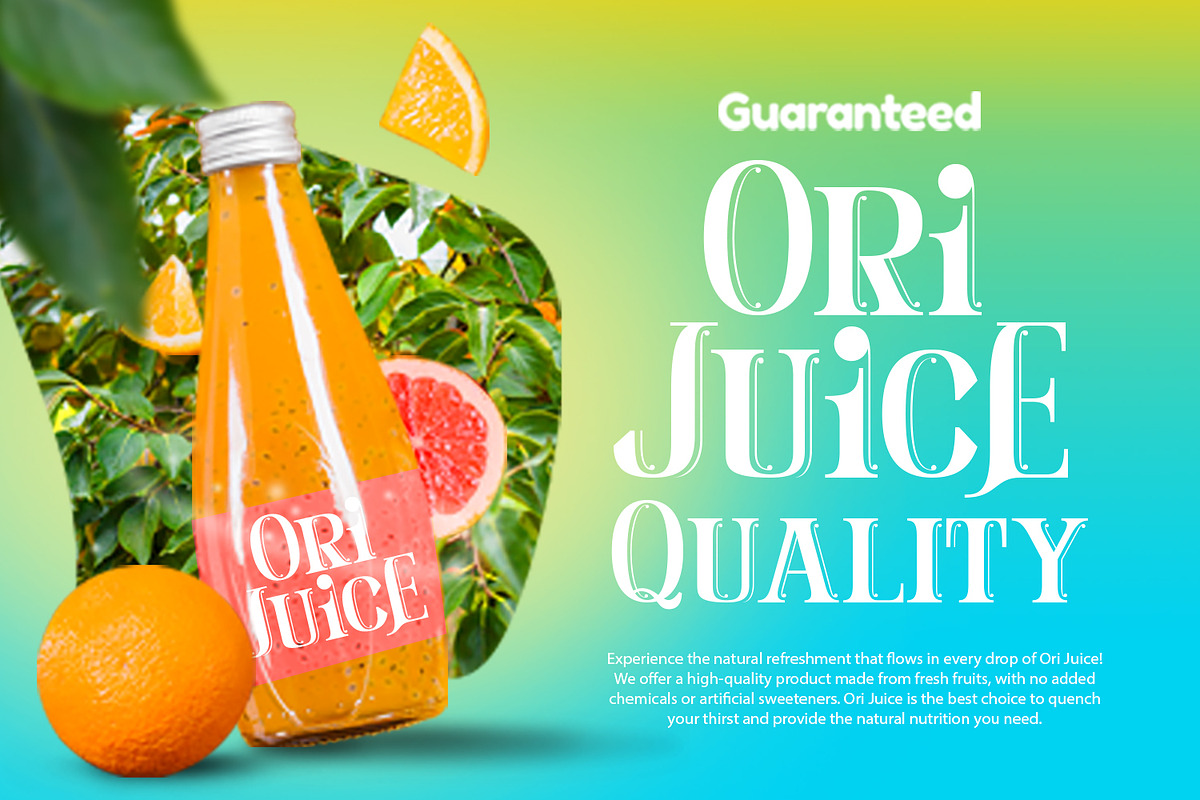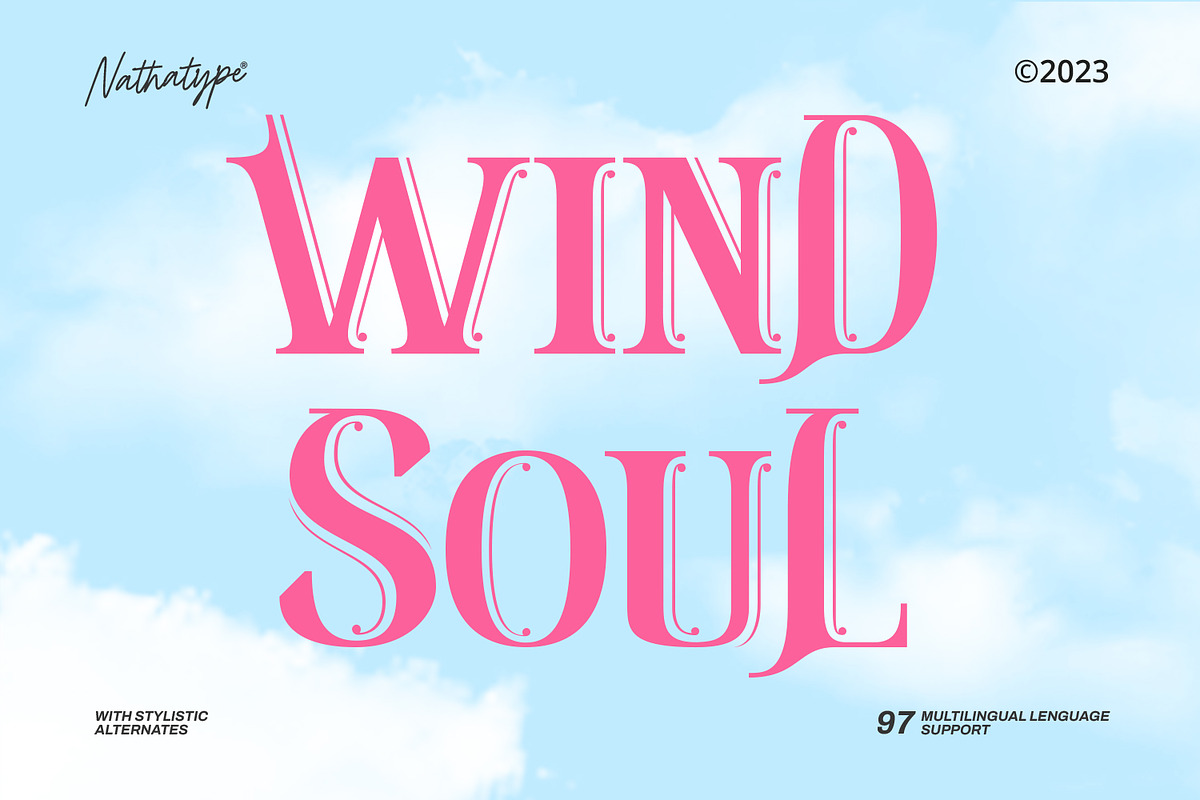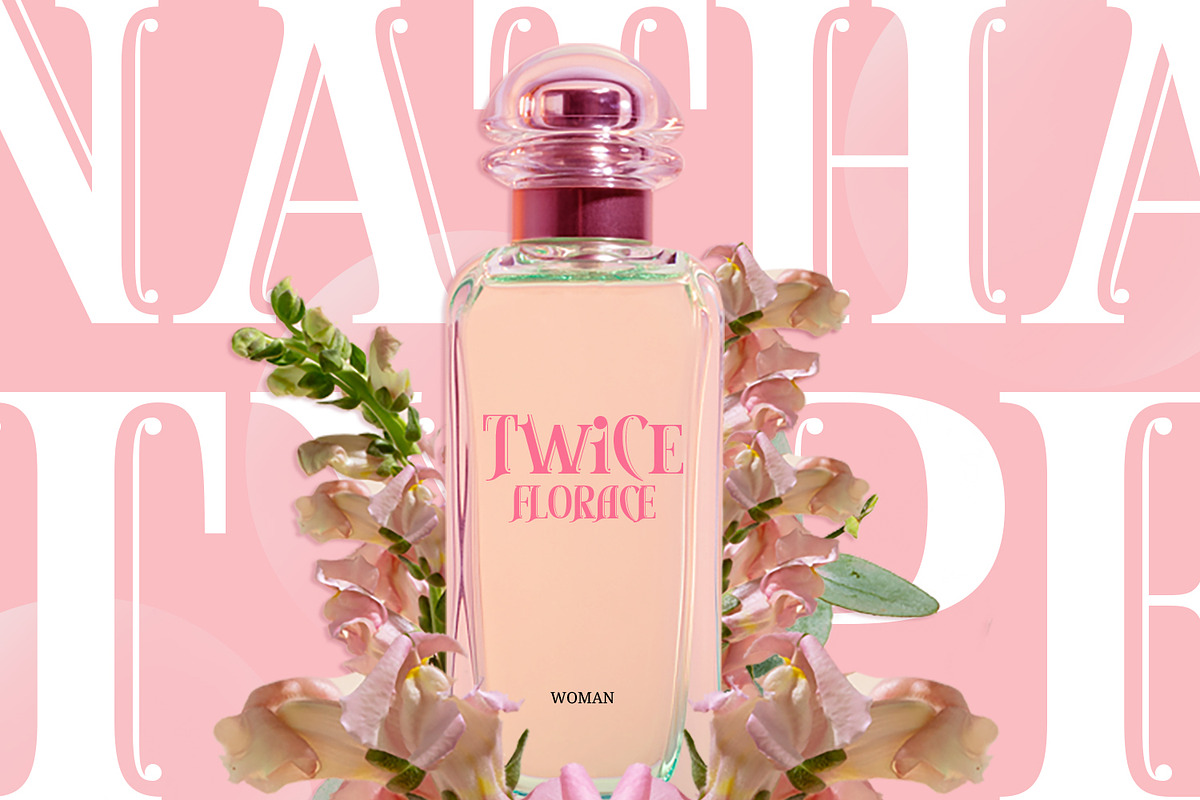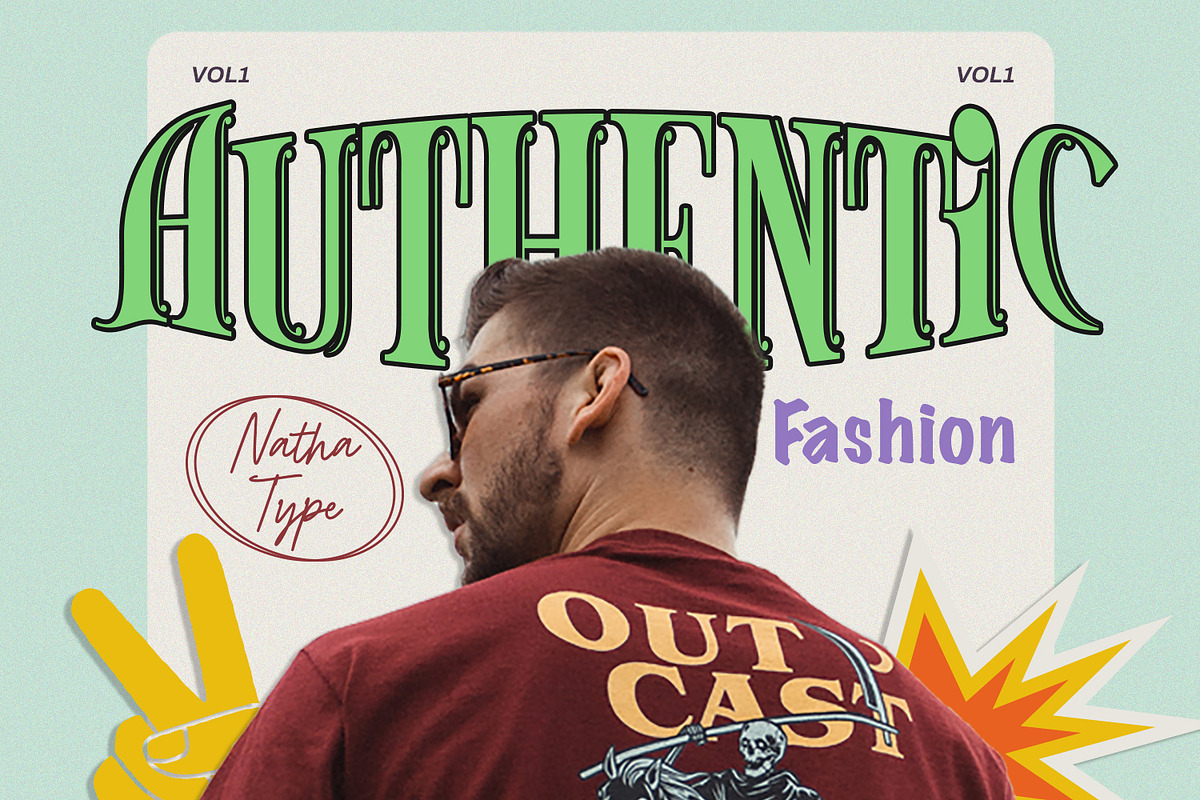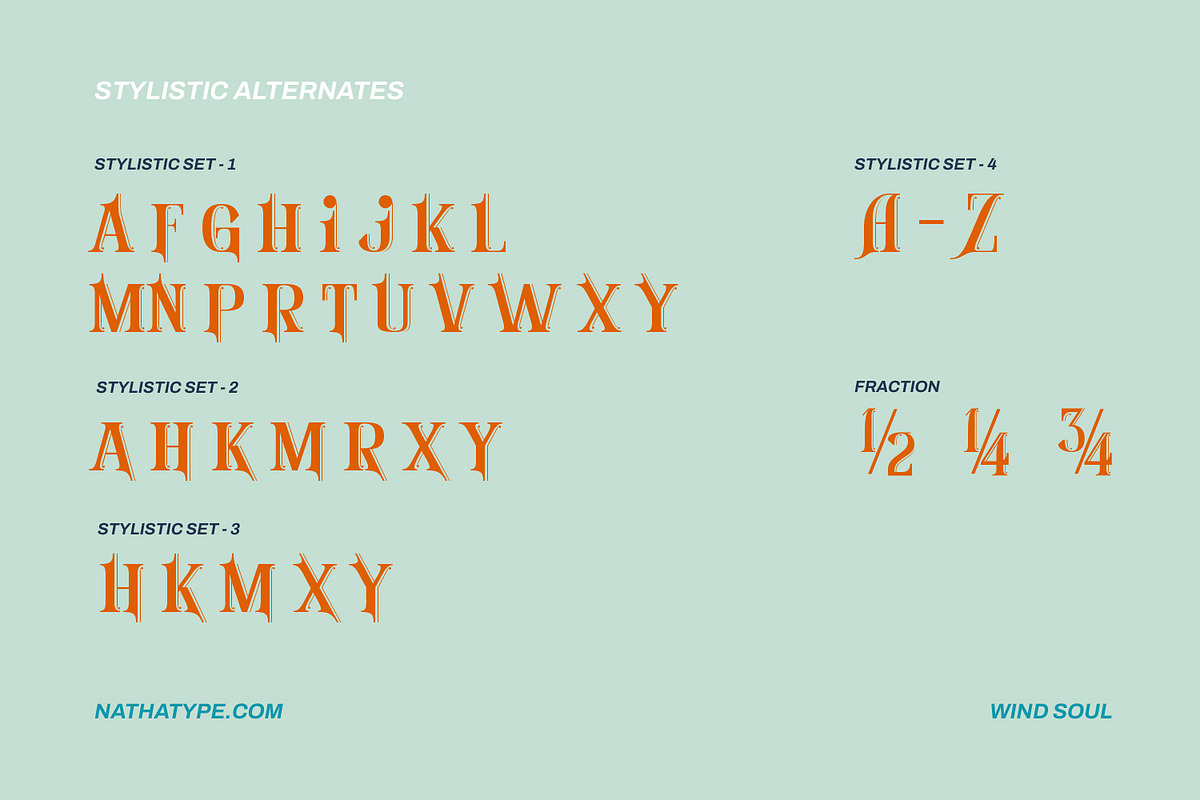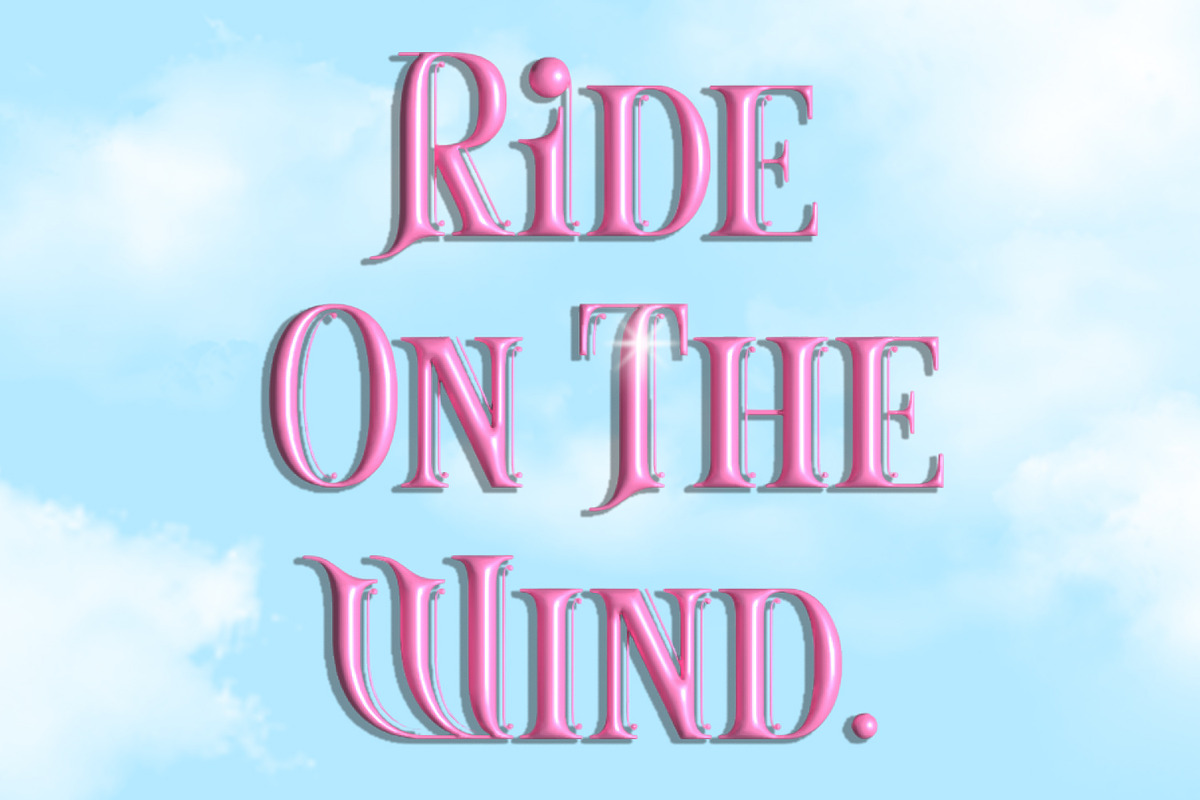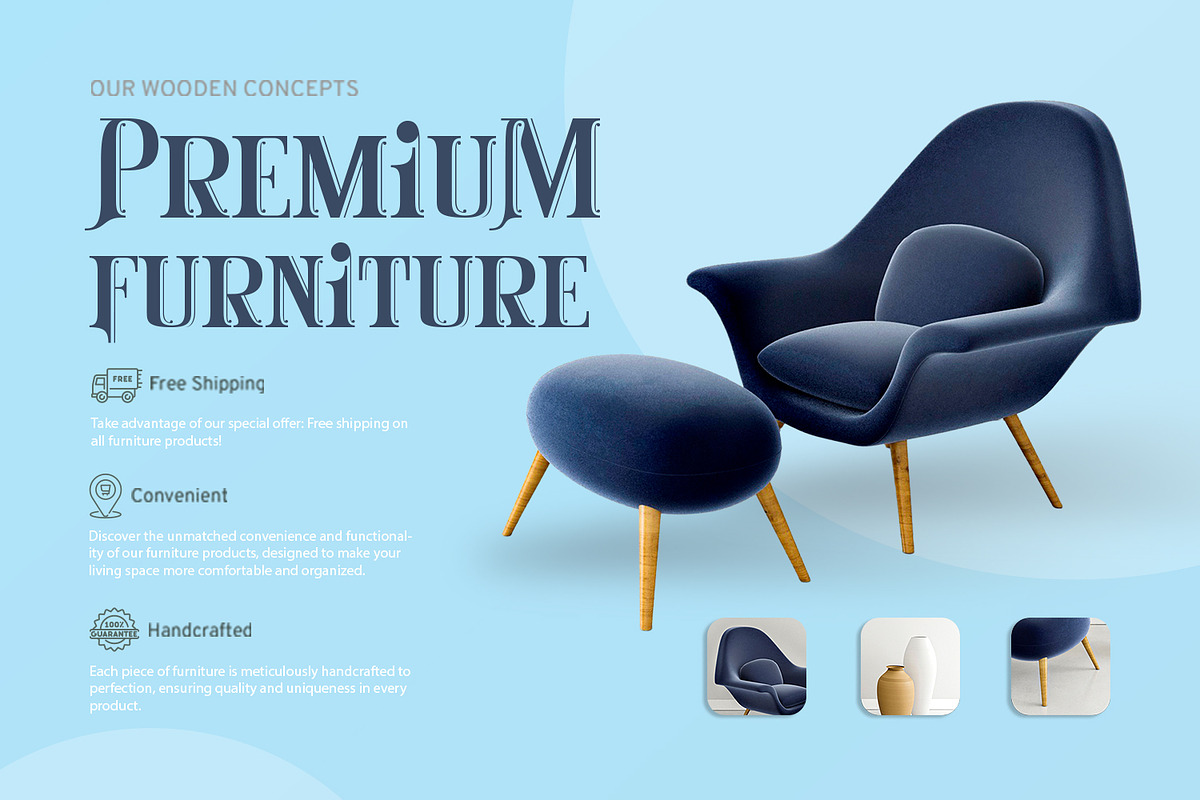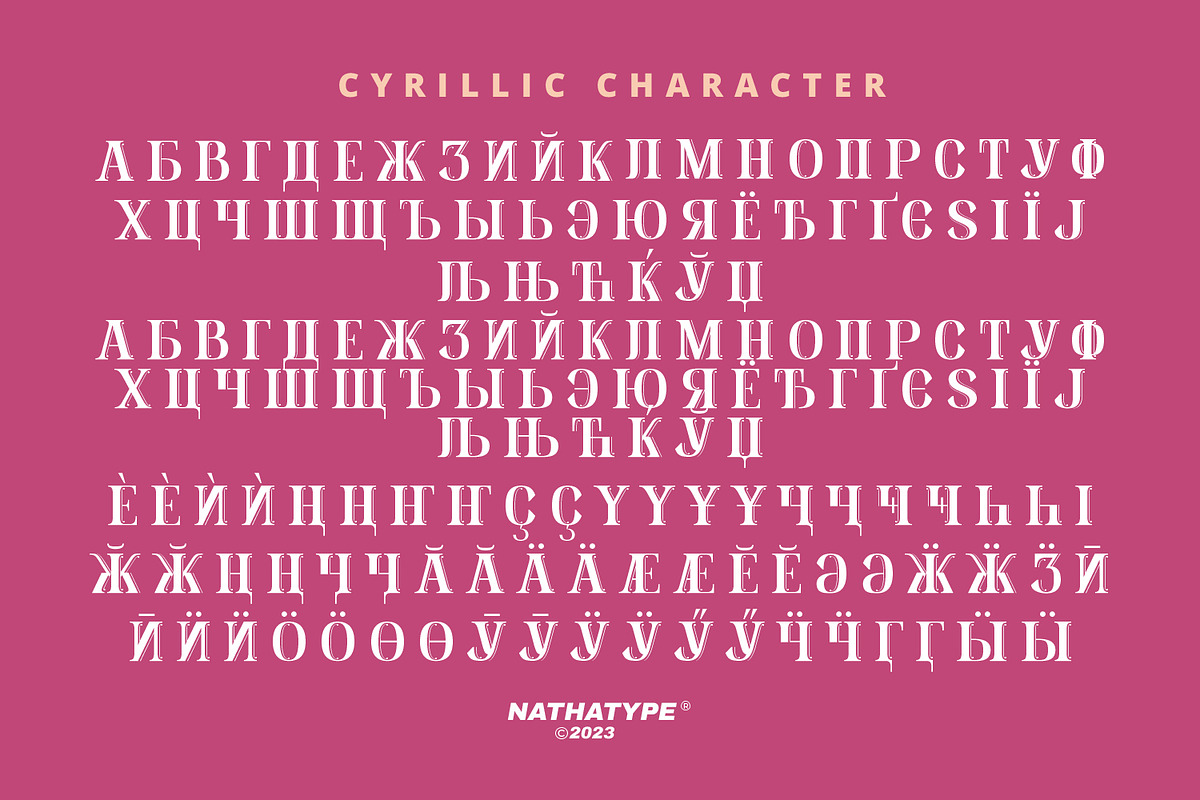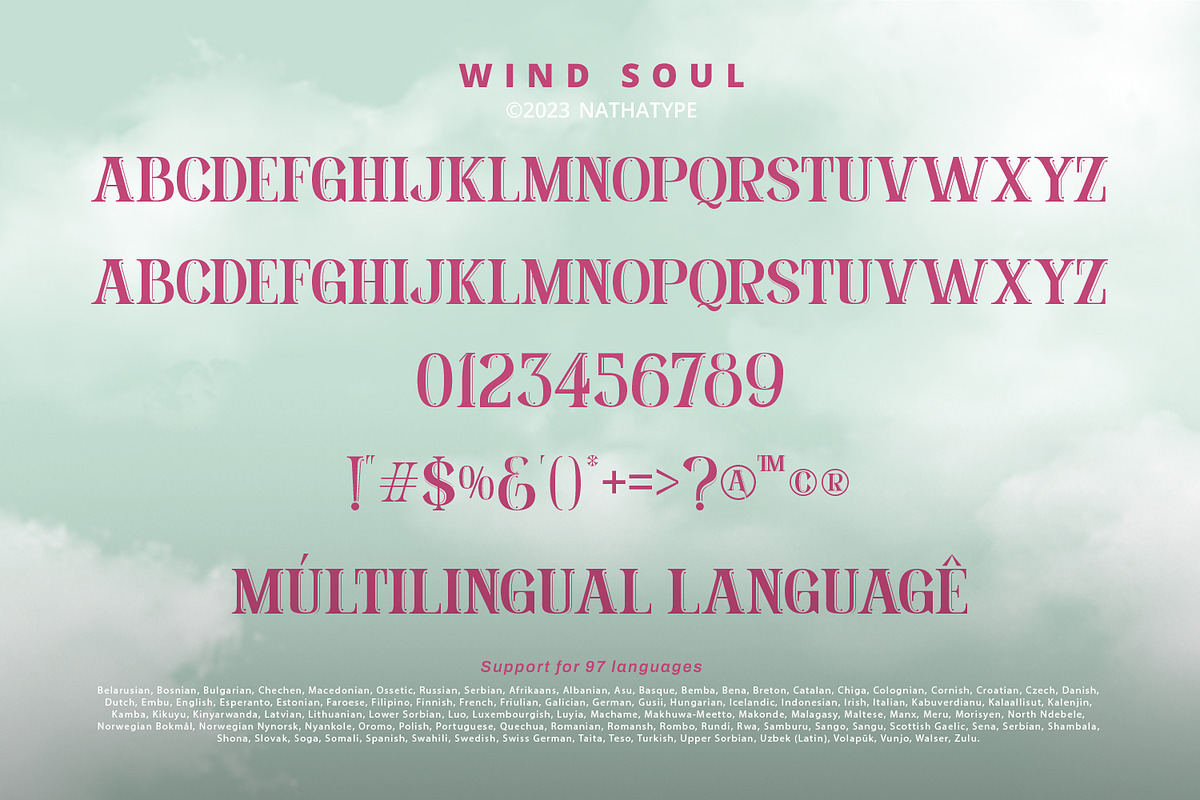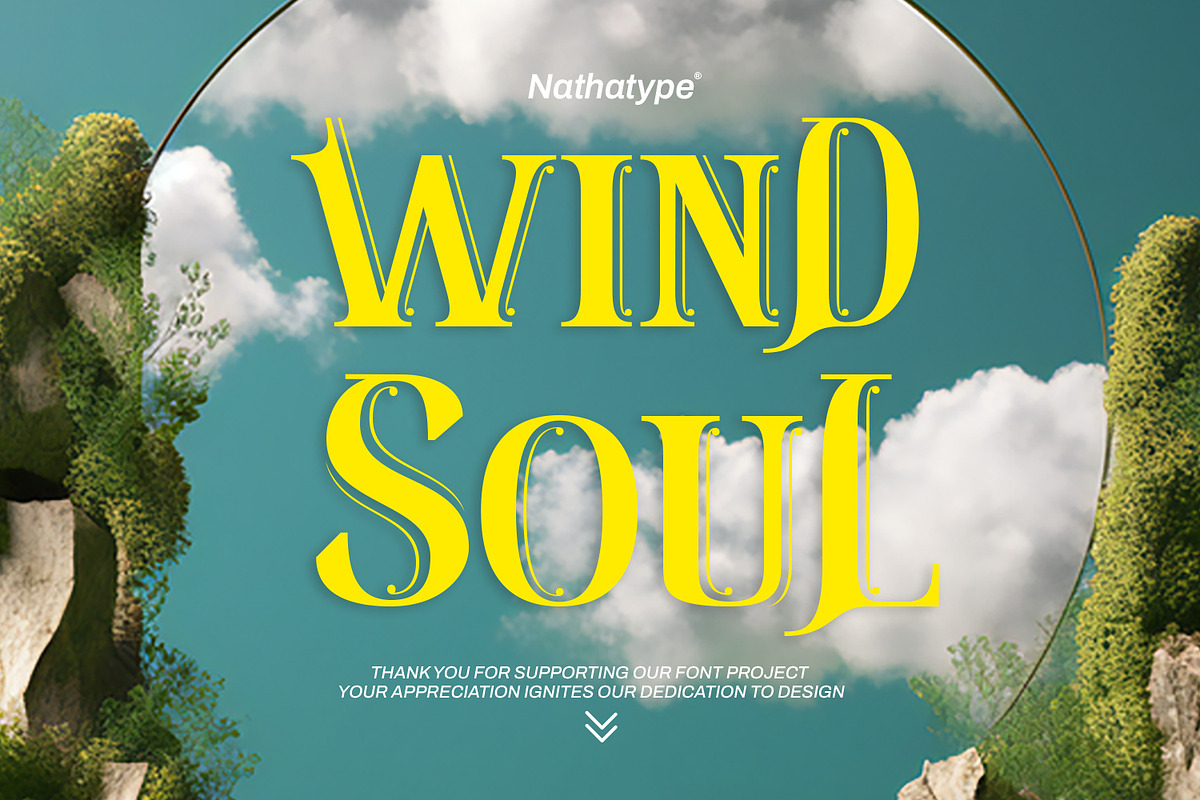
Wind Soul
Wind Soul is a whimsical display font that floats into the visual realm with an airy charm. Crafted in uppercases and playful design elements, Wind Soul is a delightful typeface that brings a sense of lightness and joy to any creative projects.
The characters in Wind Soul are generously sized, enhancing the font's playful and larger-than-life aesthetic. The thick font weight adds a comforting solidity, while the design, reminiscent of a balloon's roundness, infuses a sense of fun and lightheartedness into each letter. Enjoy the features here.
- Stylistic Sets
Wind Soul fits in headlines, logos, posters, flyers, branding materials, greeting cards, print media, editorial layouts, and many more designs. Find out more ways to use this font by taking a look at the font preview.